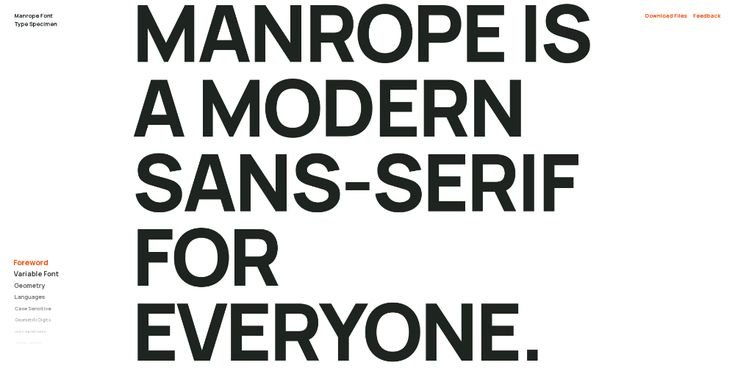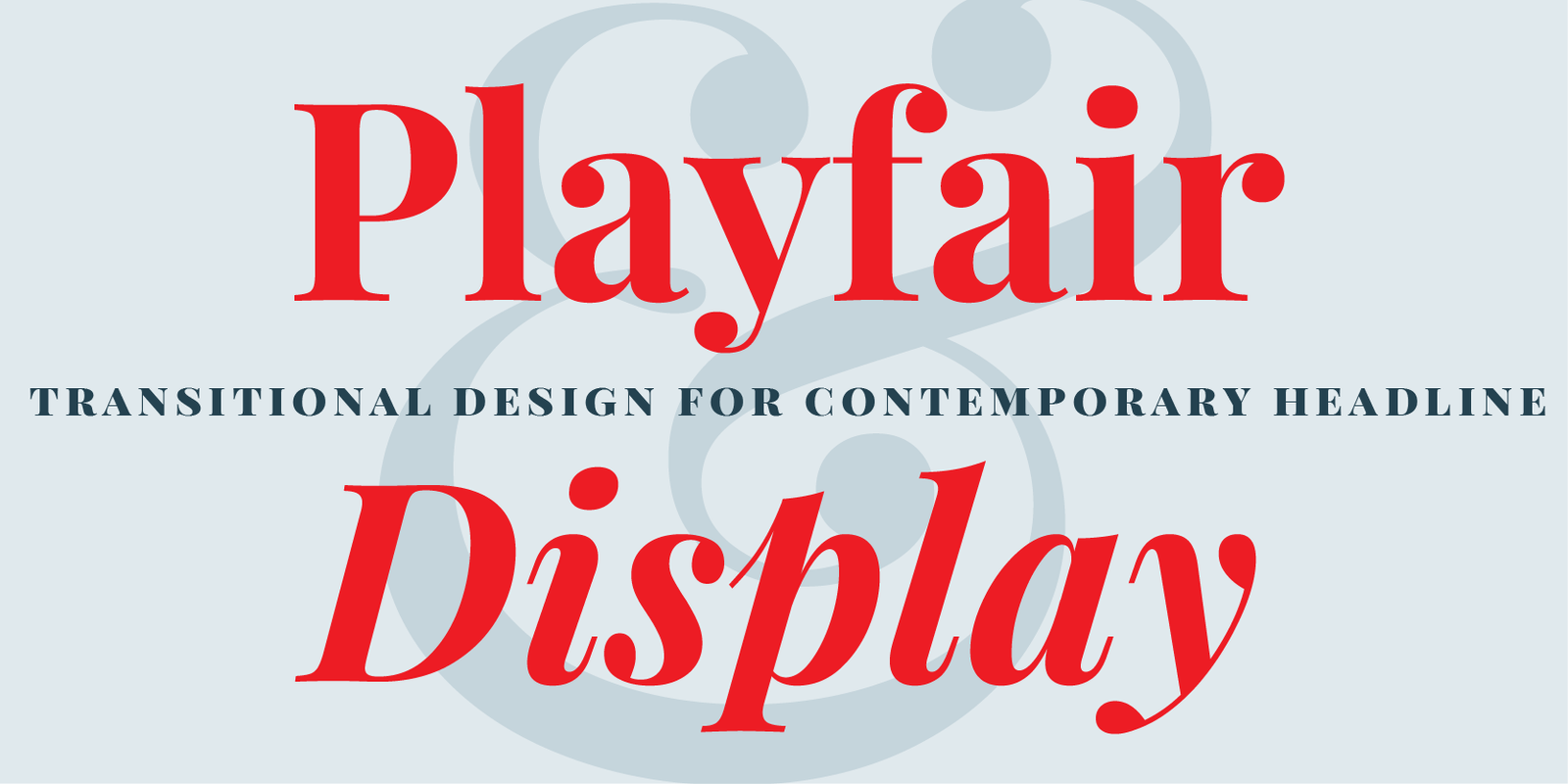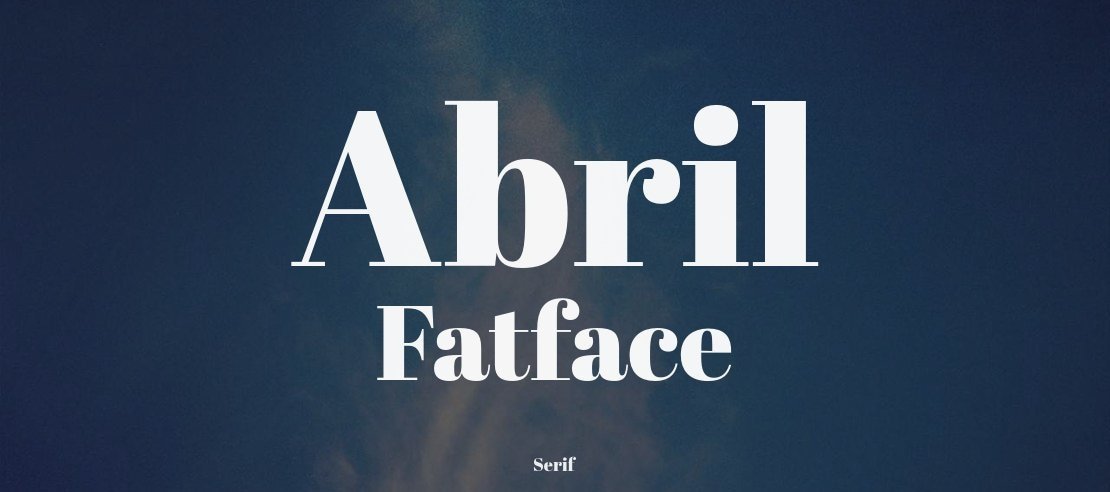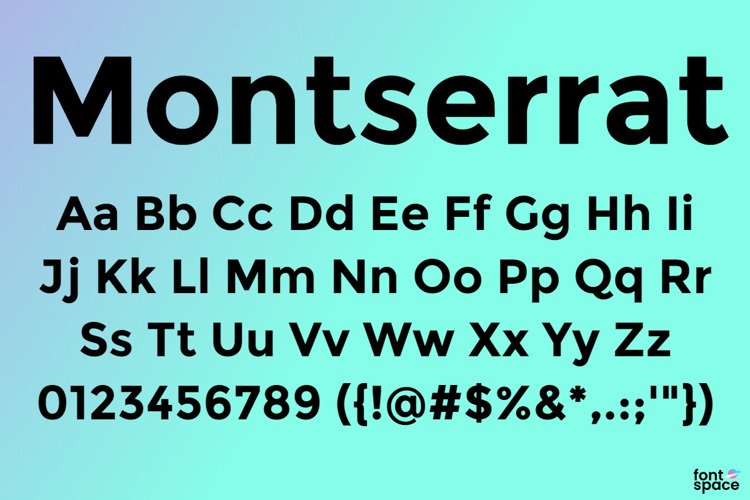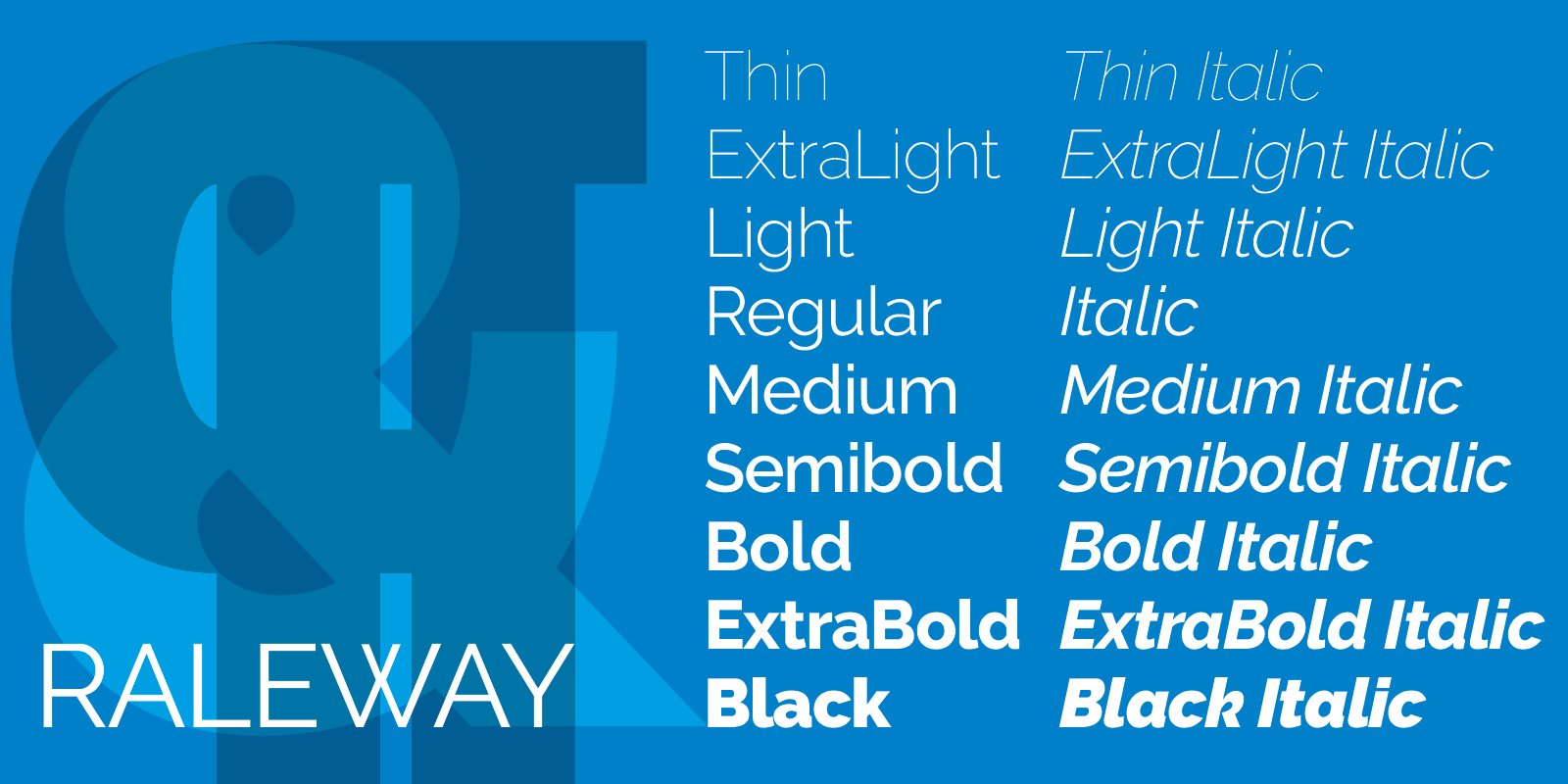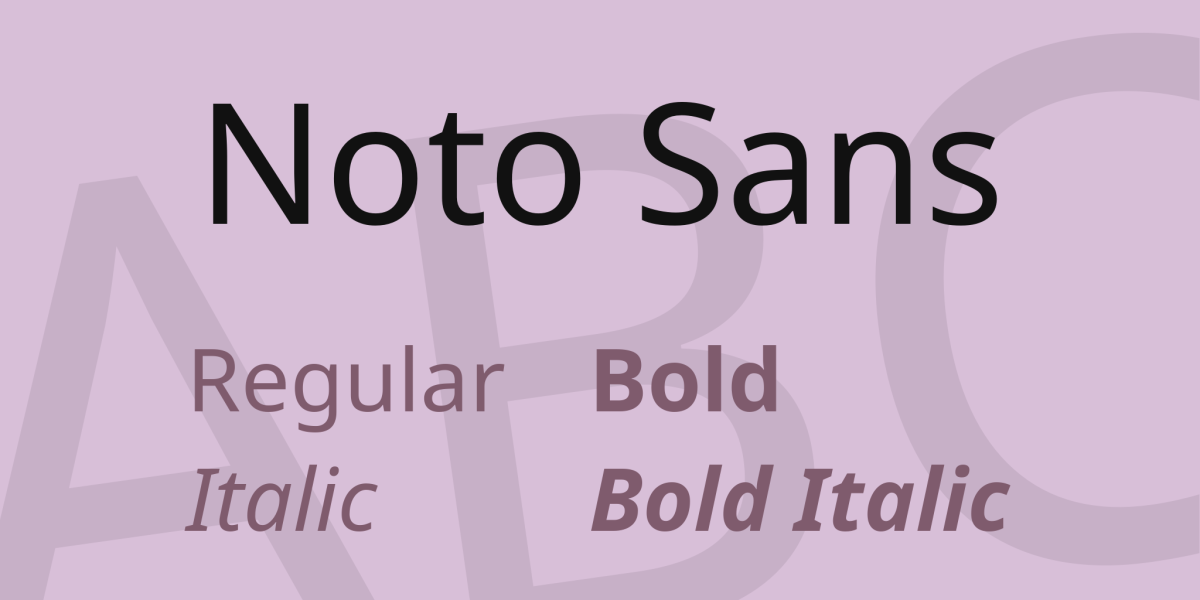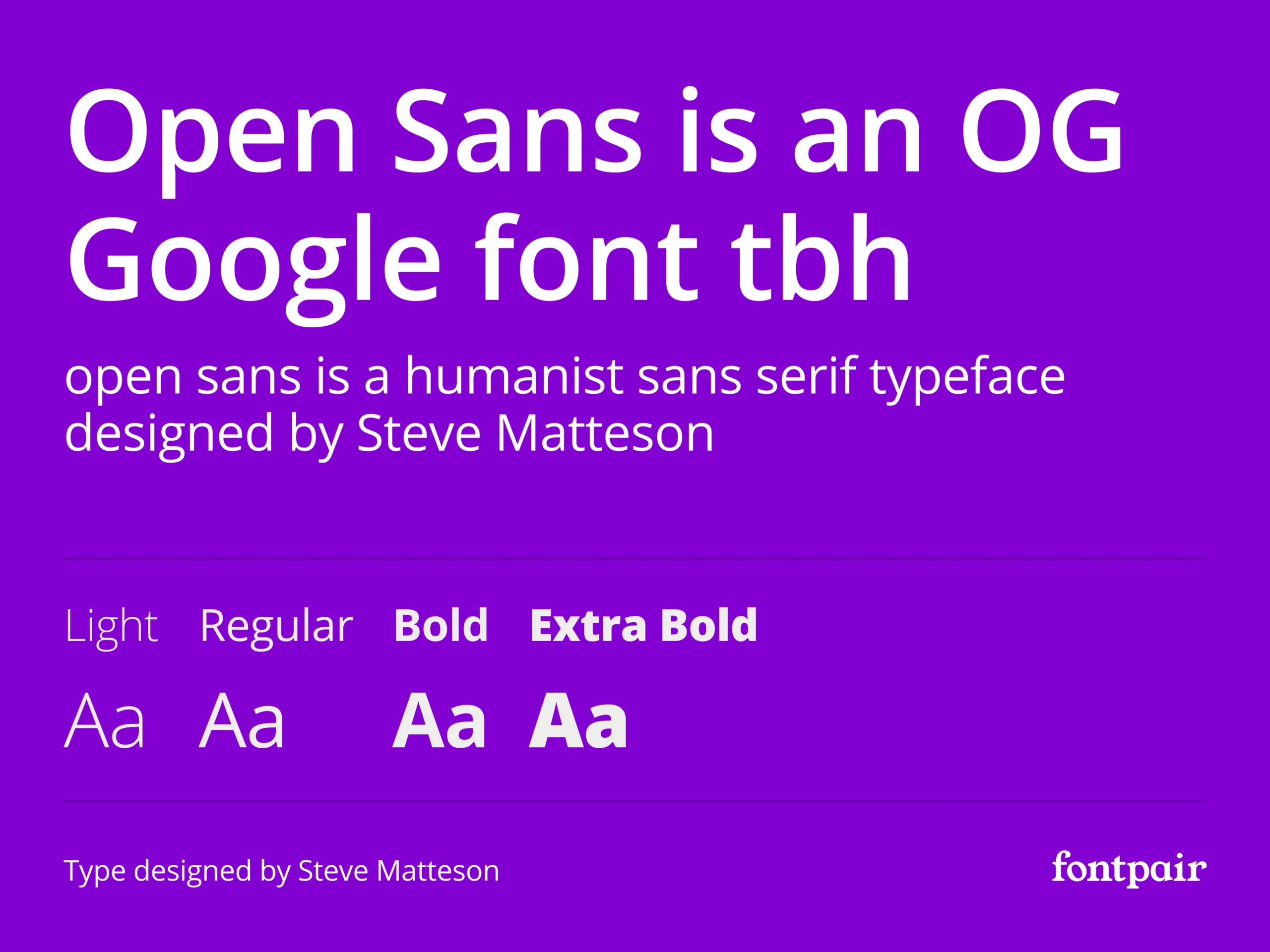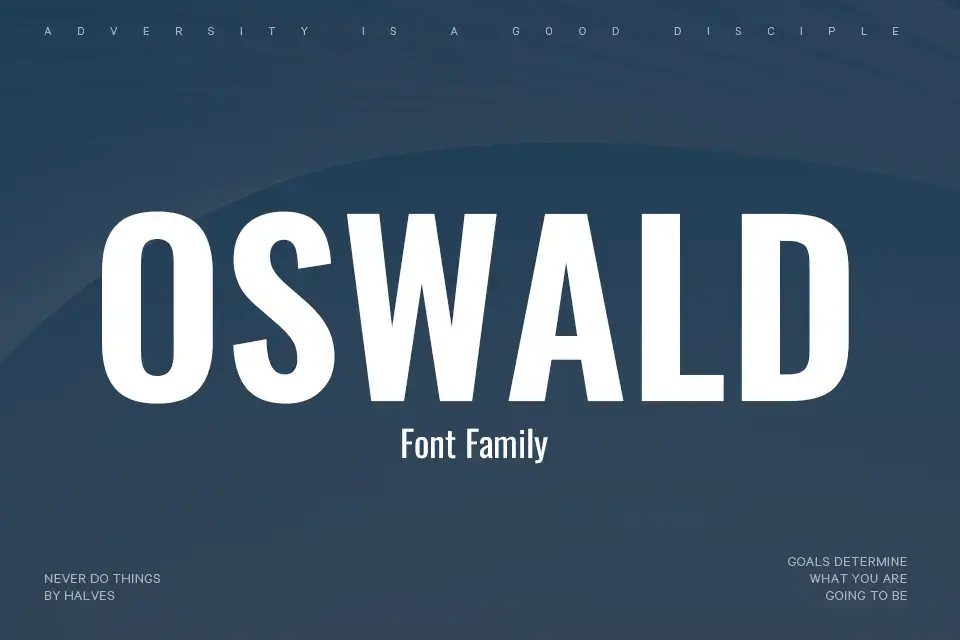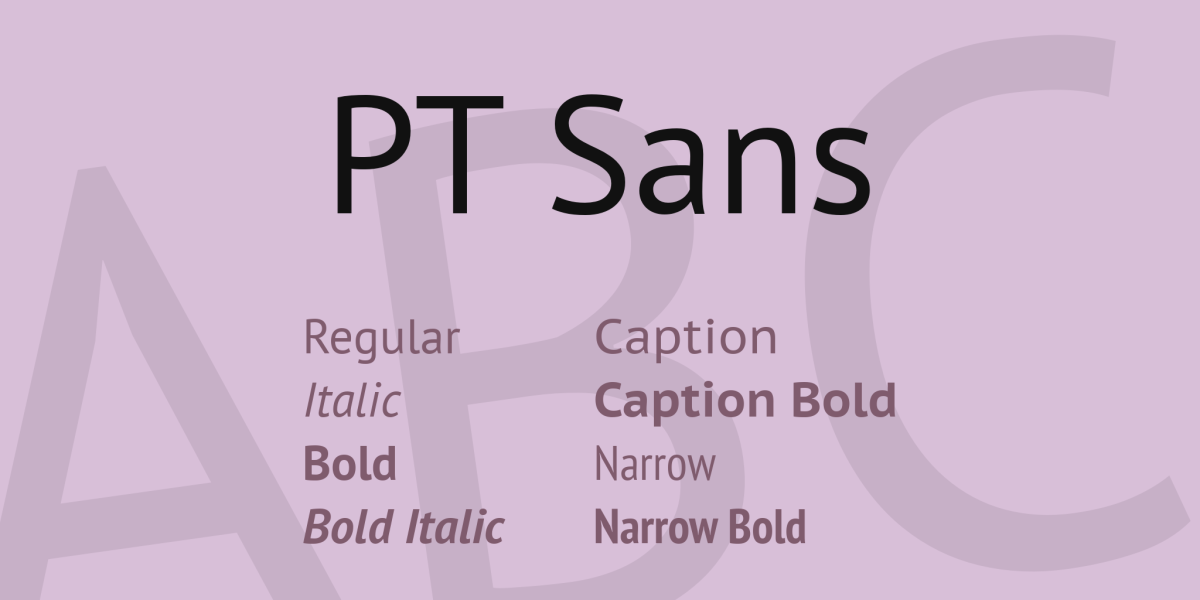
10 best Google fonts for your designs
Google has a wide selection of free fonts, suitable for all types of design projects. Whether you're a graphic designer, webdesigner, content creator or simply a typography enthusiast, there's a good chance you'll find a font to suit your needs among the hundreds offered by Google. But how do you sort through all these options? Here's a selection of Google's top 10 fonts, to help you create a professional, impactful design:
1. Manrope
Modern typography: design of a contemporary sans-serif font for visual and web communication projects.
This sans-serif font is one of Google's most popular. It features clean, modern lines, and is suitable for all types of projects, from digital to print.
2. Open Sans
Open Sans font on a purple background with different weights, ideal for graphic design and branding.
This sans-serif font is another popular option for design projects. It stands out for its light, open letters, and is particularly suitable for headlines and subheads.
3. Lato
Lato font variations: regular, italic, bold styles. Modern graphic design and branding.
This sans-serif font is an excellent option for branding projects. It features balanced, smooth letters, and is suitable for headlines and short texts.
4. Montserrat
Modern Montserrat typography, ideal for graphic and web design projects, with alphabet and special characters displayed.
This sans-serif typeface is inspired by the theater posters of the city of Buenos Aires. It's characterized by elegant, dynamic lettering, and is ideal for titles and short texts.
5. Oswald
Oswald typeface on blue background, ideal for graphic design and visual communication projects.
This sans-serif font is another popular option for branding projects. It features smooth, rounded letters, and is suitable for headlines and subheads.
6. PT Without
Varied PT Sans typography: Regular, Italic, Bold, illustrating diversity for visual design and branding projects.
This sans-serif font is another excellent option for branding projects. It features balanced, smooth letters, and is suitable for headlines and short texts.
7. Raleway
Presentation of the different weights and styles of the Raleway font for graphic design and branding.
This sans-serif font is another interesting option for branding projects. It stands out for its fine, elegant lettering, and is suitable for headlines and subheadings.
8. Playfair Display
Elegant red typographic text illustrating the Playfair Display font for modern graphic design.
This serif font is another excellent option for content design projects. It features thick, elegant letters, and is suitable for headlines and subheads.
9. Noto Sans
Noto Sans font in regular, bold, italic and bold italic variants, on purple background for elegant graphic design.
This sans-serif font is another excellent option for branding projects. It features balanced, smooth letters, and is suitable for headlines and short texts.
10. Abril Fatface
Elegant Abril Fatface typeface on a dark background, ideal for design projects and visual branding.
This sans-serif font is an excellent option for branding or titling projects. It features thick, offset letters, and is suitable for headlines and subheads. Its strong, distinctive personality makes it an ideal font for creating visual impact.
This selection of the 11 best fonts from Google offers you a wide choice of styles and features for your design projects. Whether you're looking for a modern sans-serif font, a stylish serif font, a font suitable for branding or a distinctive font for headlines, you're sure to find an option that suits your needs among these 11 Google Fonts. Feel free to explore other Google fonts to find the right one for your project.